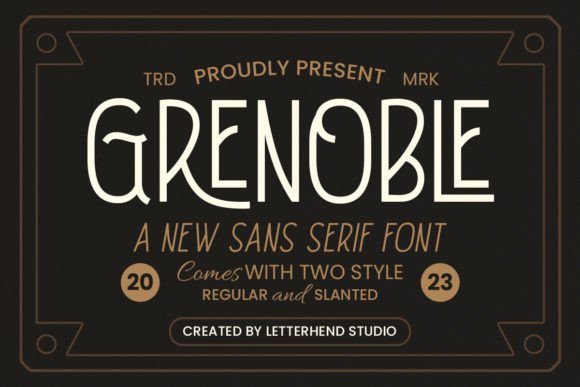
Immerse yourself in the world of Grenoble, a sans-serif font that captivates with its understated elegance and modern aesthetics. Crafted by the creative minds at letterhend, Grenoble masterfully blends the essence of classic design with a refreshing twist of contemporary flair. Its monoline strokes and pristine lines evoke a sense of simplicity and sophistication, making it an ideal choice for a wide range of design endeavors.
With its remarkable versatility, Grenoble seamlessly adapts to a myriad of design projects, from sleek logos and branding elements to eye-catching posters and captivating headlines. Its inherent charm shines through in both digital and print formats, ensuring that your creations leave an indelible mark. Whether you're a seasoned designer or just starting your creative journey, Grenoble empowers you to express your individuality with finesse.
Step into the realm of Grenoble and discover a font that embodies both timeless beauty and contemporary style. Its intuitive design makes it a breeze to use, allowing your creativity to flow effortlessly. Unleash your imagination and embark on a design odyssey, transforming ordinary projects into extraordinary masterpieces. Experience the Grenoble difference today and elevate your designs to new heights.
Explore the boundless possibilities of Grenoble, a font that ignites passion and sets your creativity ablaze. Let its enchanting allure captivate your audience and leave them spellbound. Embrace the Grenoble experience and unlock a world of design possibilities that will leave you breathless. Immerse yourself in the Grenoble journey and witness the transformation of your designs into works of art.